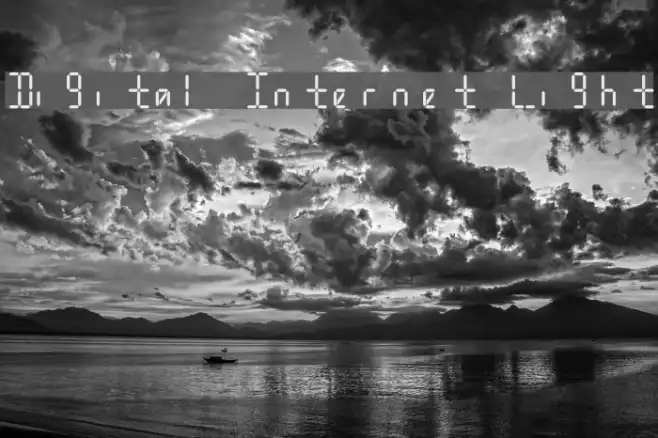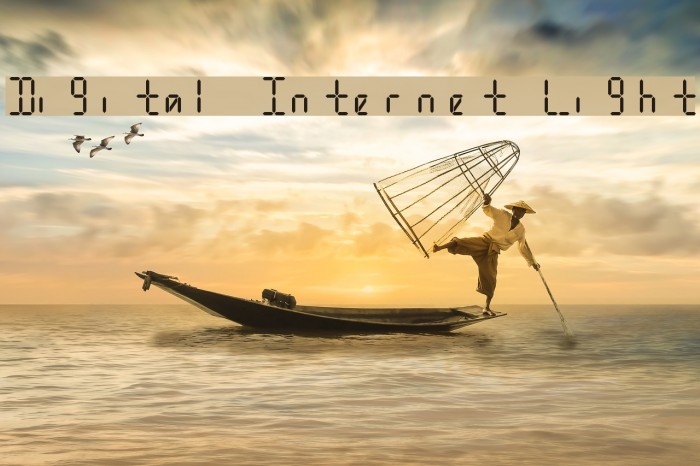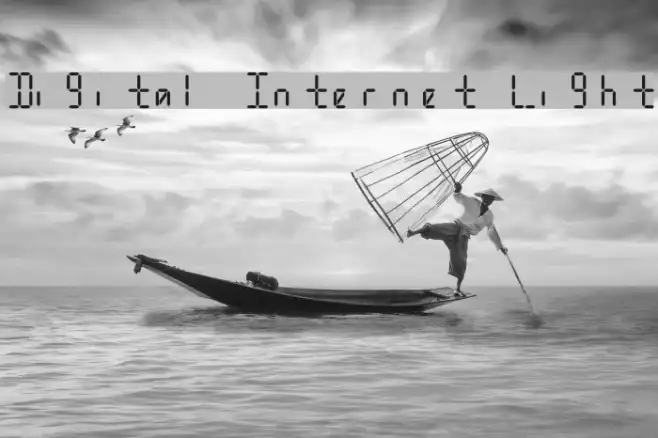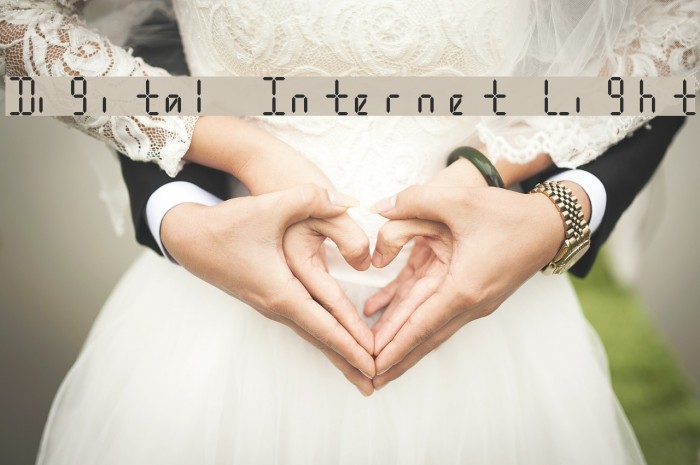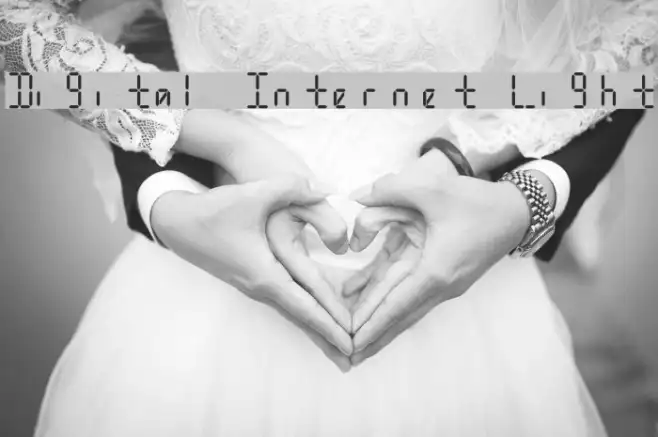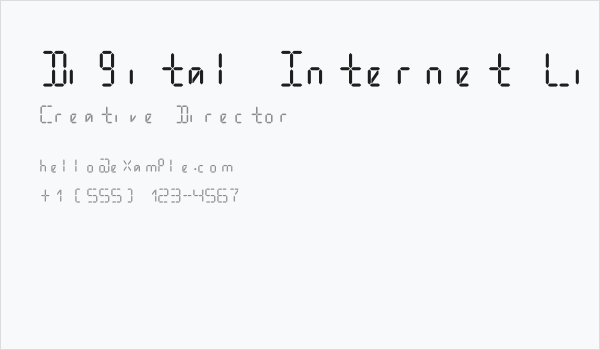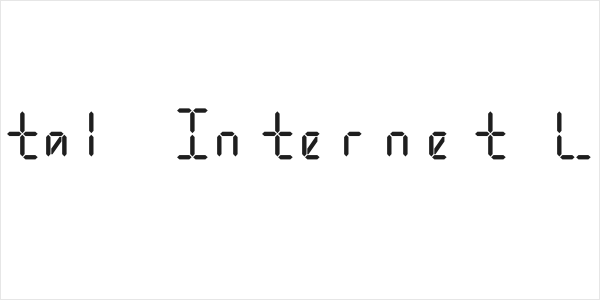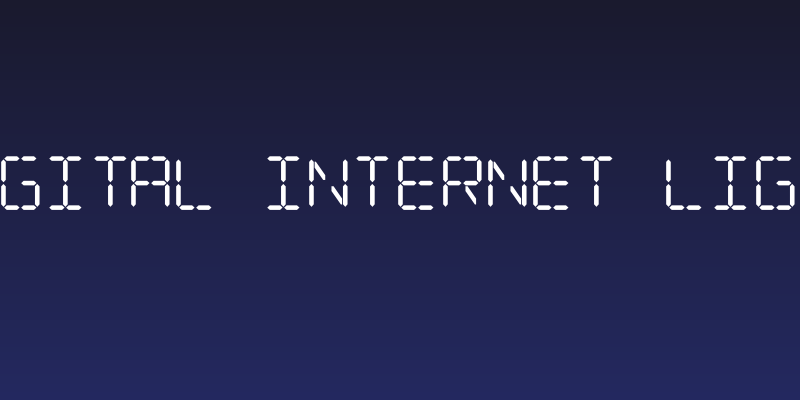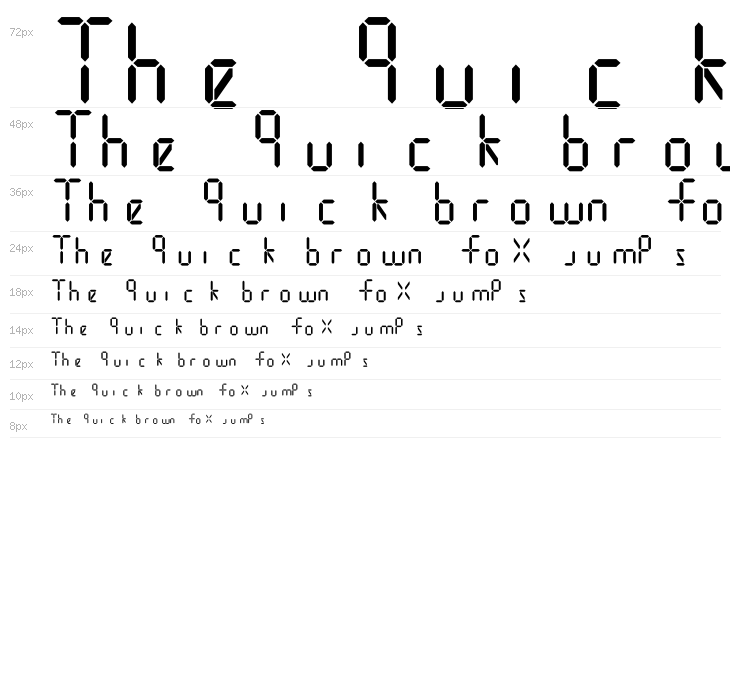
Digital Internet Light Font
Digital Internet Light Description
This font features a digital, segmented style reminiscent of classic LED displays. Each character is composed of distinct segments, creating a futuristic and technological appearance. The uppercase and lowercase letters maintain a consistent geometric form, while the numerals and special characters follow the same segmented pattern. The design is clean and minimalistic, emphasizing clarity and readability. This font is ideal for digital-themed projects, evoking a sense of modernity and precision.
| Use Case | Logos, Digital displays, Tech interfaces |
| Proposed Projects | Ideal for digital interfaces, tech branding, electronic displays, and futuristic designs. |